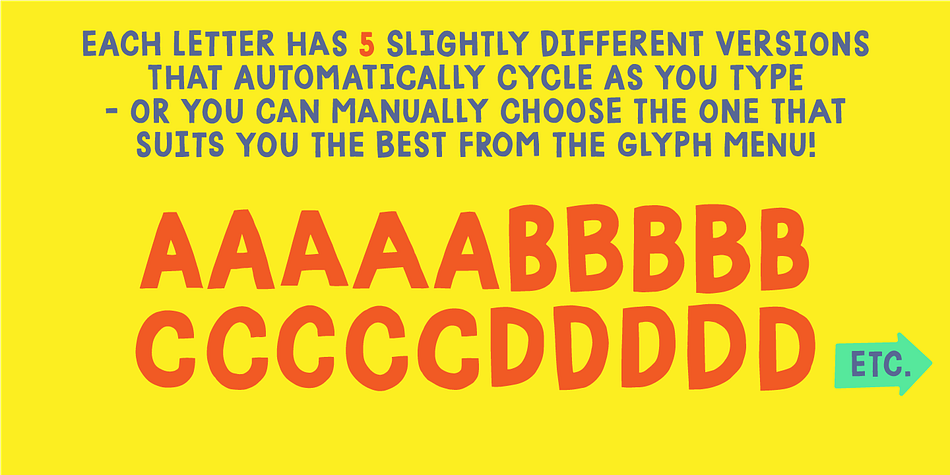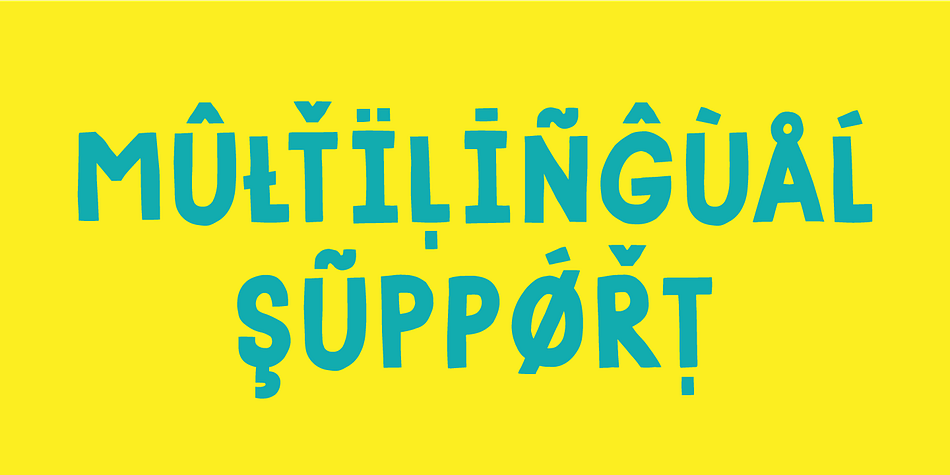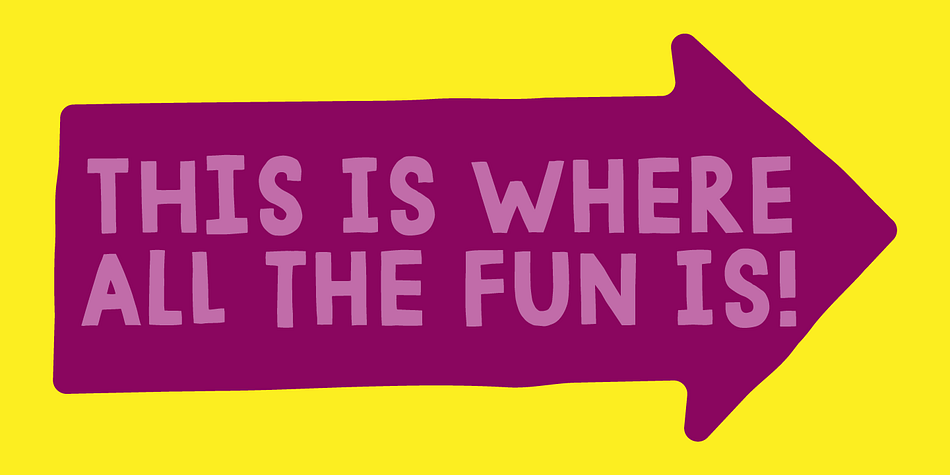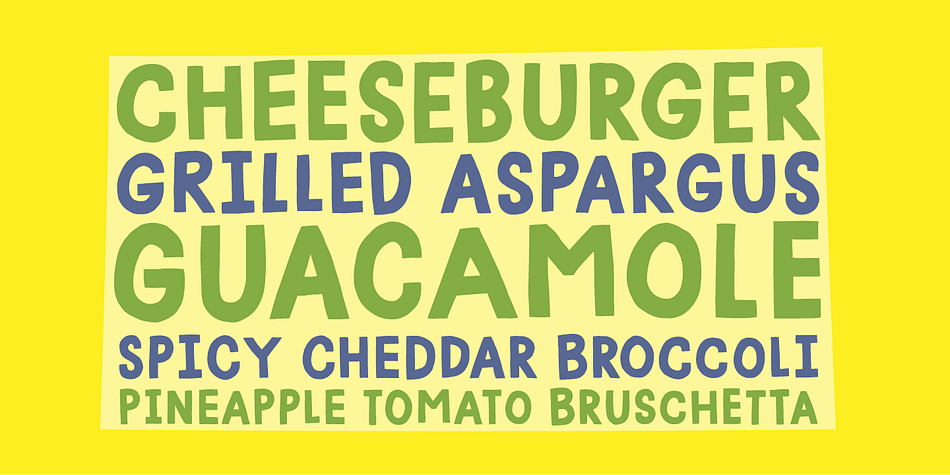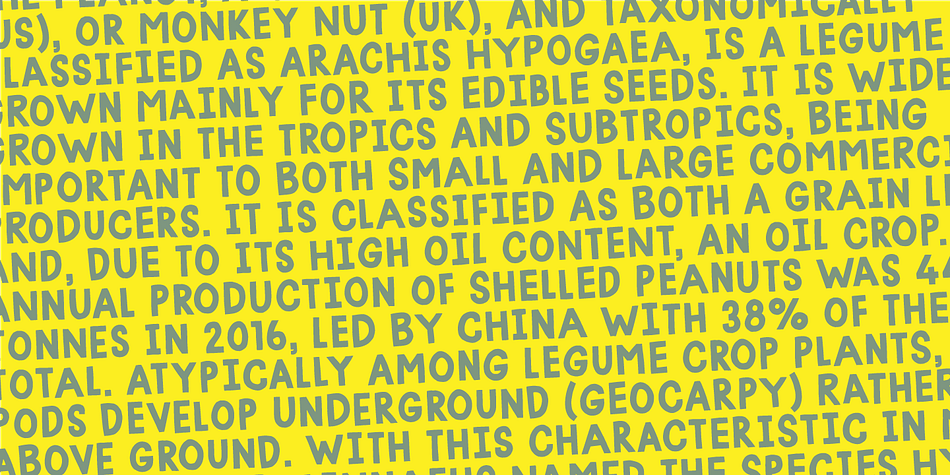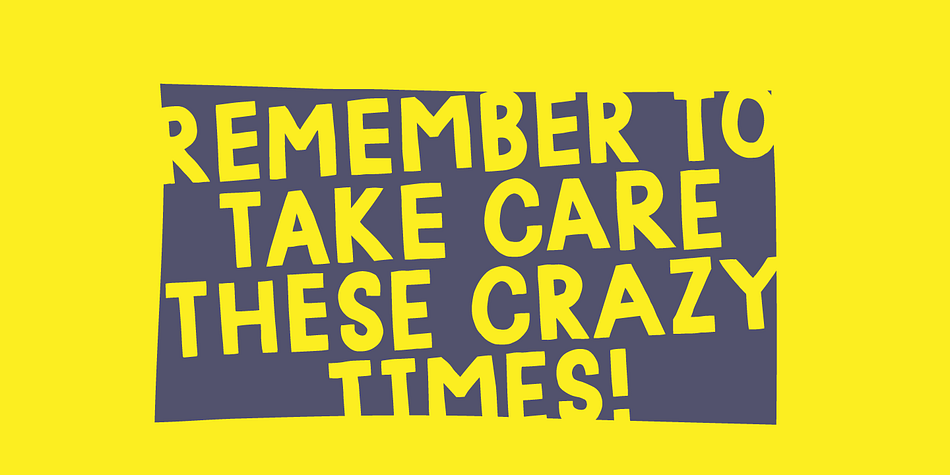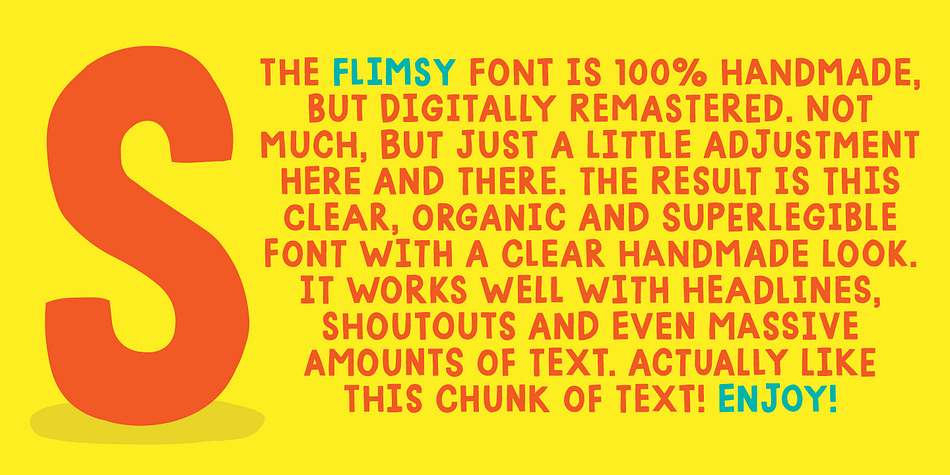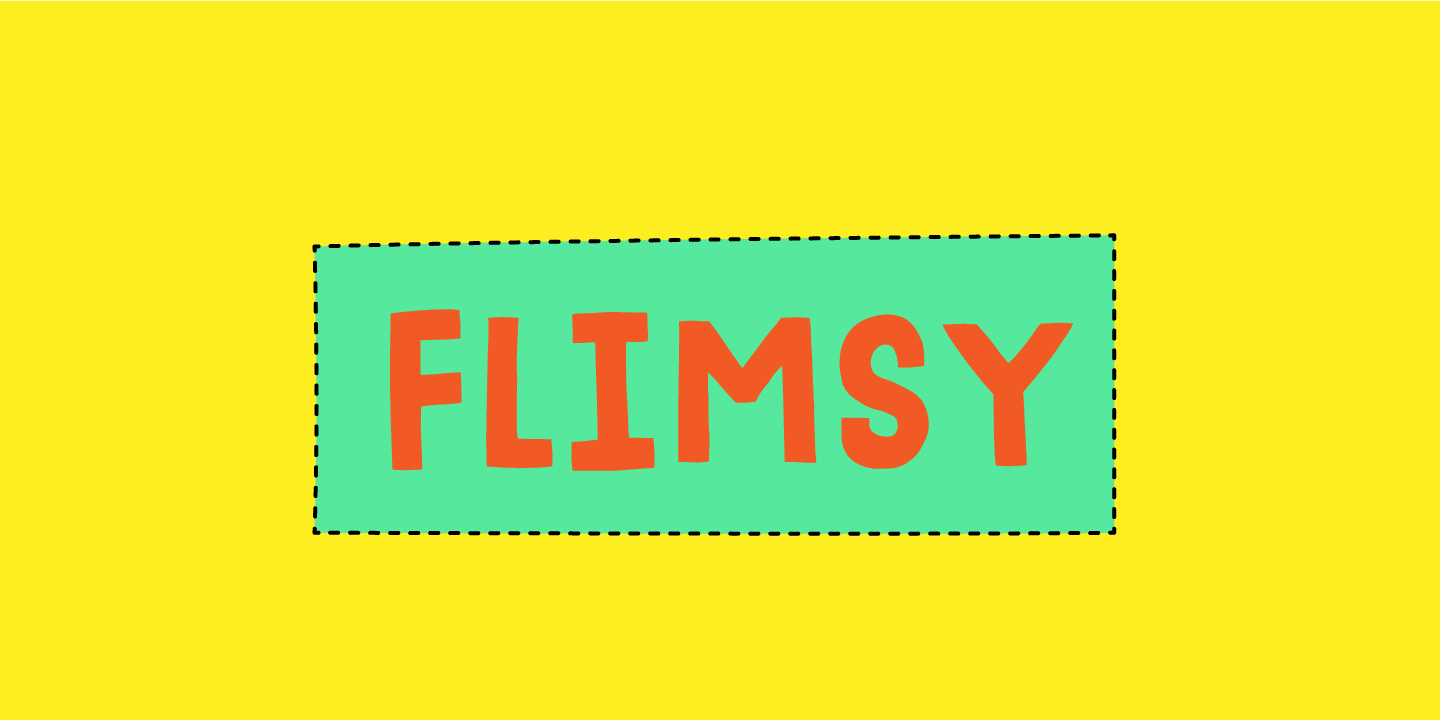
Designed by Jakob Fischer, Flimsy is a hand display and hand drawn font family. This typeface has two styles and was published by Bogstav.
Flimsy is 100% handmade, but digitally remastered. I removed some blobs here and there, but kept enough of the original handmade line in order to make the Flimsy stand out as an organic and powerful ALL CAPS font!
I’ve also added 5 slightly different versions of each letter, along with multilingual support!